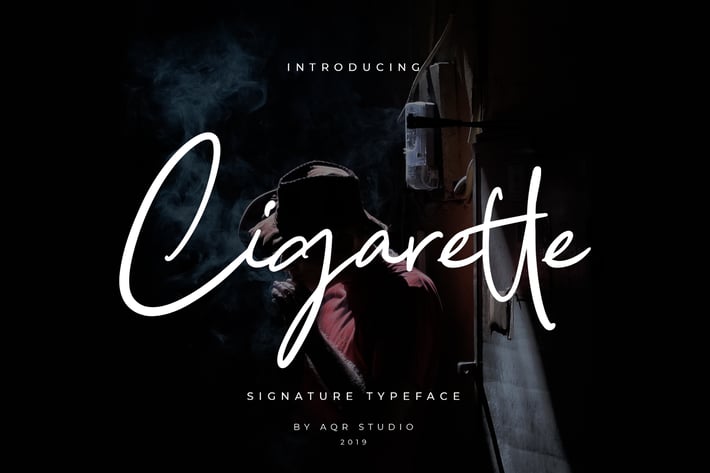
Cigarette Signature Font Pro Version
Cigarette Siganture Font that contain lowercase, uppercase, symbol, and also support multi language. There’s a lot ligatures in this font. Cigarette Siganture Font also comes with ligatures, stylistic alternates and many more. this font suitable for fashion, branding, catalog and other design what you want.